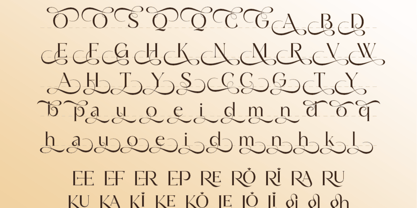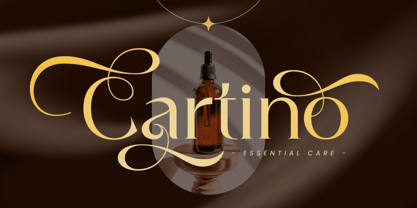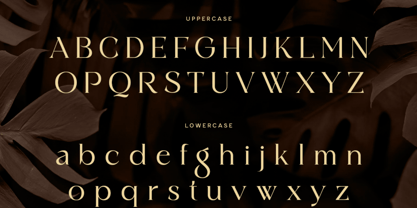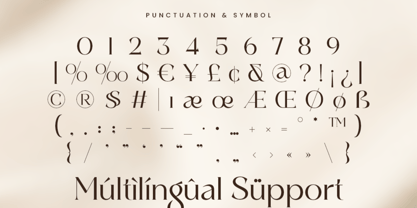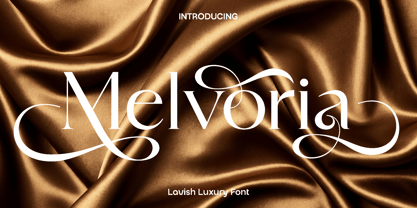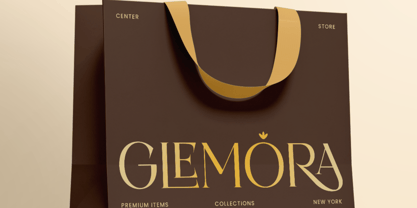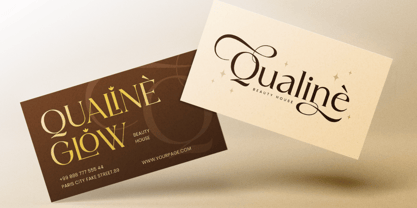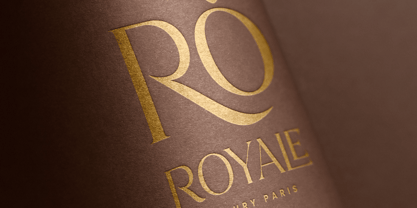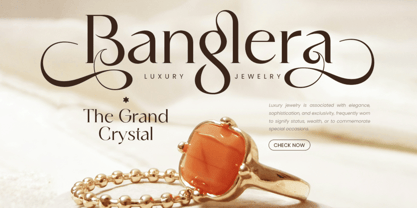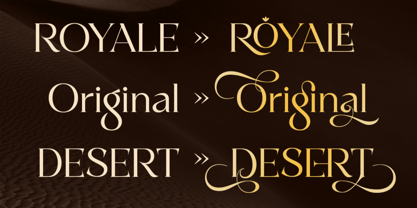
Melvoria
The Melvoria Font Family was designed by Olivia Love and published by Only Fonts. Melvoria contains 1 styles. More about this family
Melvoria – Lavish Luxury Serif Font Melvoria is a luxurious serif font designed to convey elegance, refinement, and timeless sophistication. Drawing inspiration from high fashion typography and premium editorial design, Melvoria showcases graceful curves, refined details, and beautifully balanced letterforms that exude exclusivity. Each character is meticulously crafted to impart a polished and upscale appearance to your creative projects. This font is ideal for luxury branding, fashion labels, wedding invitations, editorial layouts, cosmetic packaging, boutique logos, and elegant social media visuals. Melvoria seamlessly merges modern sophistication with classic charm, making it a perfect fit for both contemporary and timeless design concepts. Whether utilized in striking headlines or delicate typography accents, it offers a refined visual experience rich in character and prestige. Designed for creators who desire their typography to be stylish, memorable, and luxurious, Melvoria features elegant ligatures and alternate characters that provide flexibility and artistic freedom, enabling designers to craft smooth and visually captivating compositions. The font embodies a soft yet confident personality that enhances branding and elevates every design with a premium aesthetic. With its harmonious structure and versatile elegance, Melvoria transforms ordinary text into a statement of beauty and sophistication. It is an essential typeface for designers aiming to create projects with a graceful, high-end identity and a lasting impression. Melvoria Lavish Luxury Font Features: • Alternates and ligature characters ready • Punctuation, numbers, and symbols • Uppercase and lowercase • OpenType features • Multilingual support for 50 plus languages • Elegant luxury serif style • Perfect for branding, editorials, invitations, and packaging